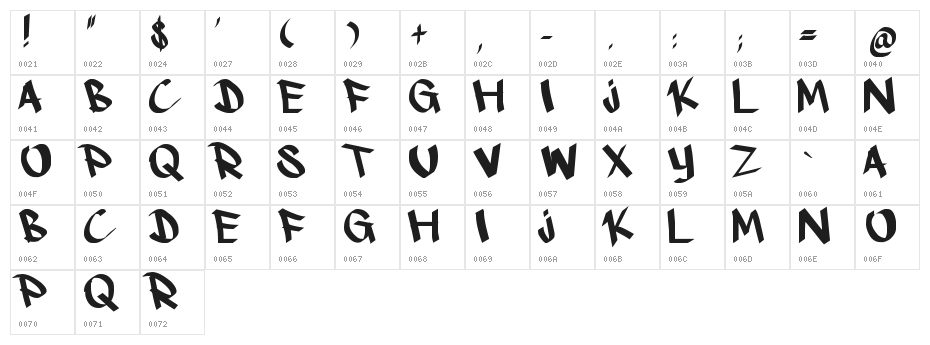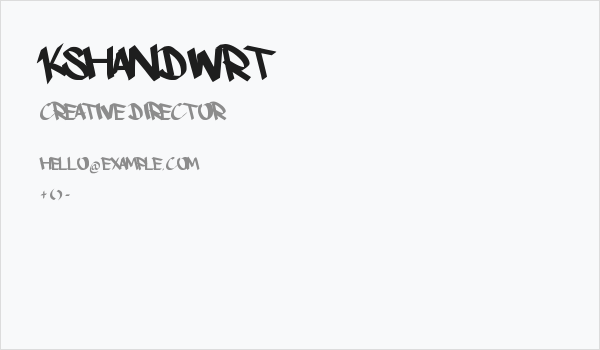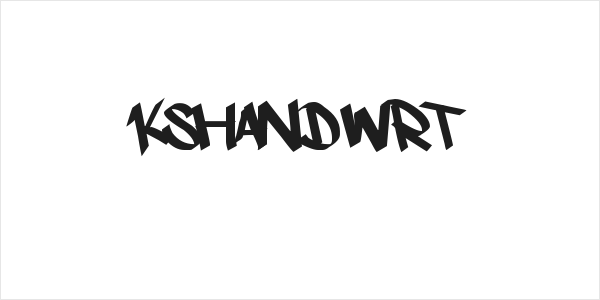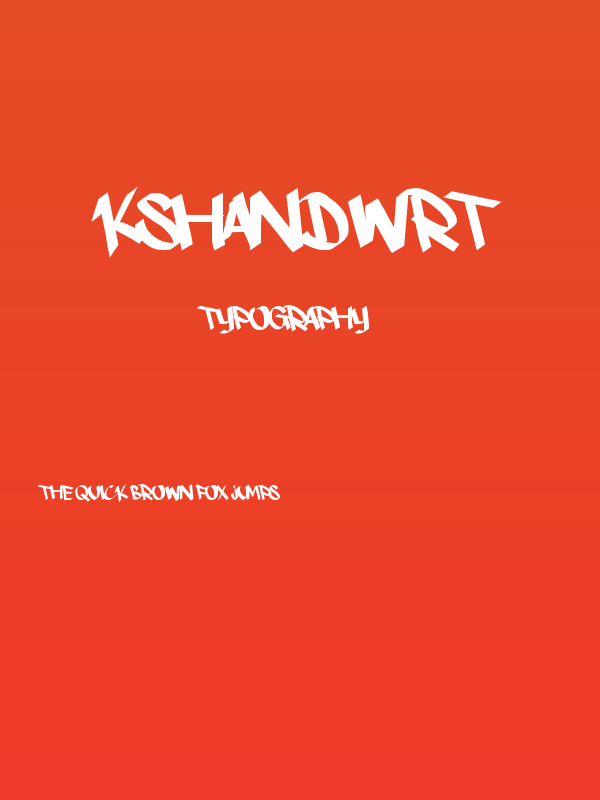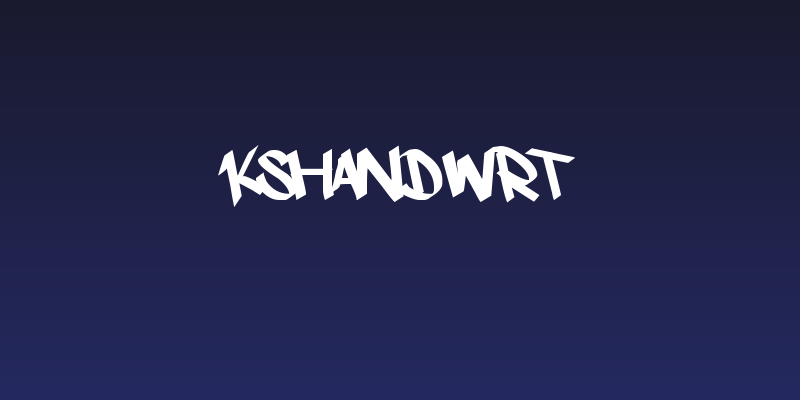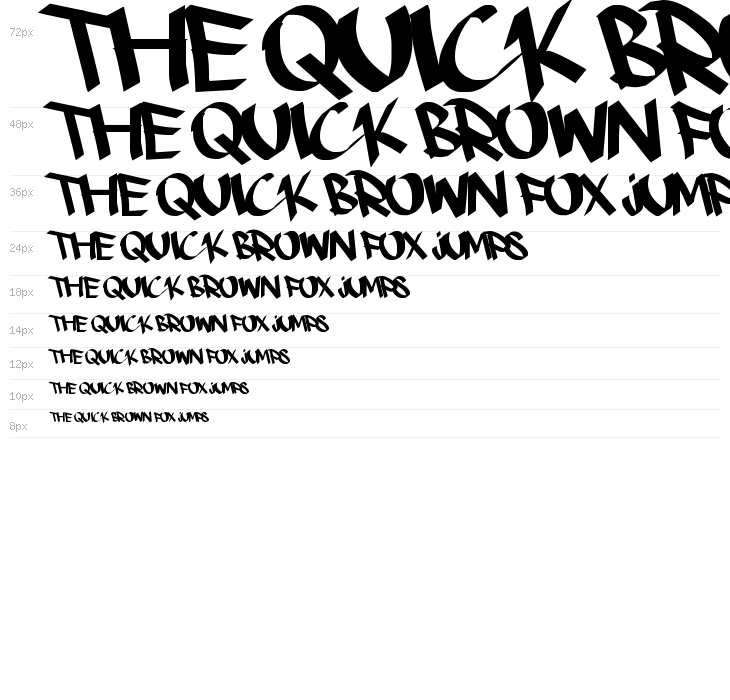
kshandwrt Font
kshandwrt Description
This font exudes a bold and energetic style, characterized by its sharp angles and dynamic strokes. The uppercase letters are particularly striking, with a graffiti-like flair that suggests movement and creativity. The lowercase letters maintain this energy, offering a cohesive look across the alphabet. The numbers and special characters are equally bold, ensuring consistency throughout. The font's design is both modern and edgy, making it ideal for projects that require a strong visual impact.
| Overall Style | Modern, Edgy |
| Proposed Projects | Ideal for street art designs, urban-themed posters, music album covers, and edgy branding projects. |